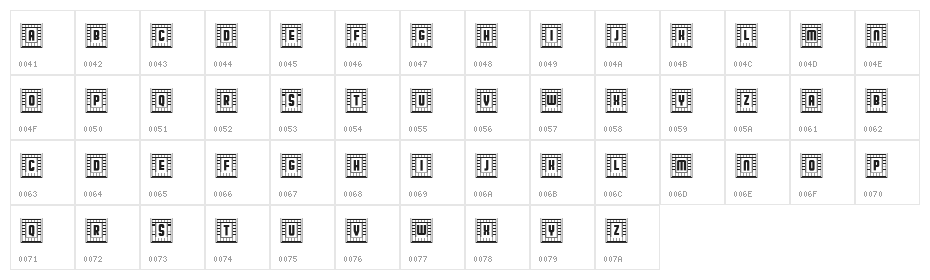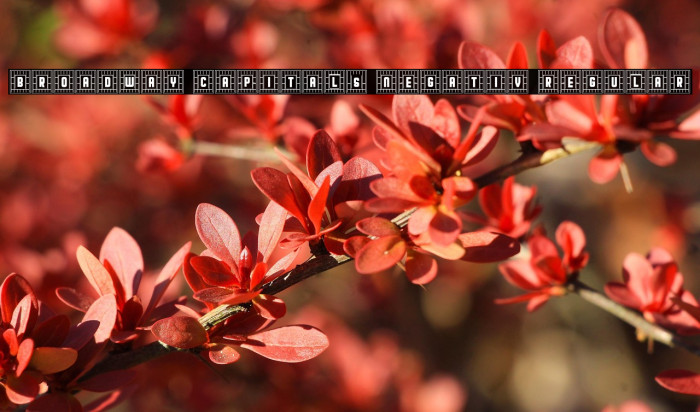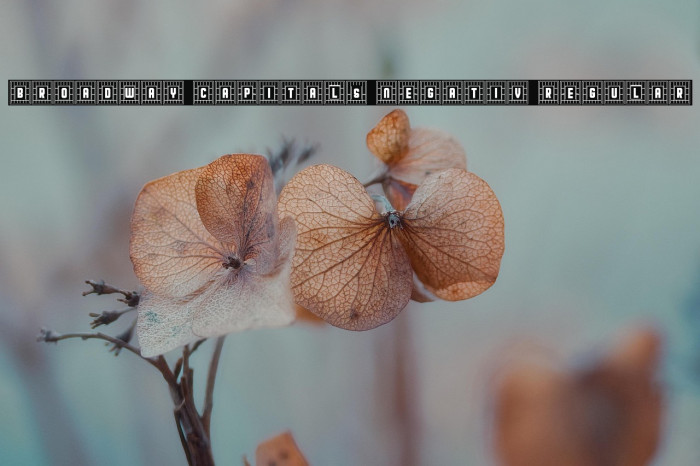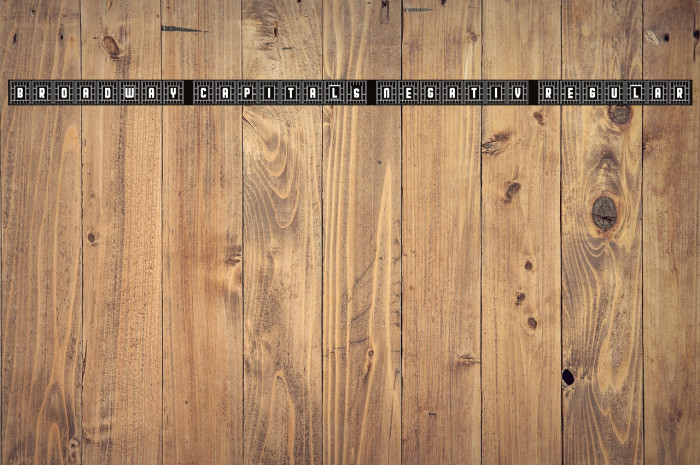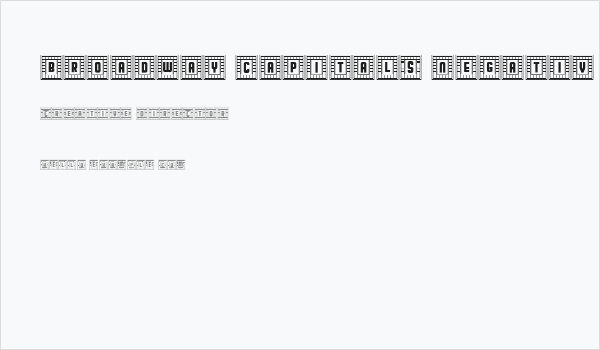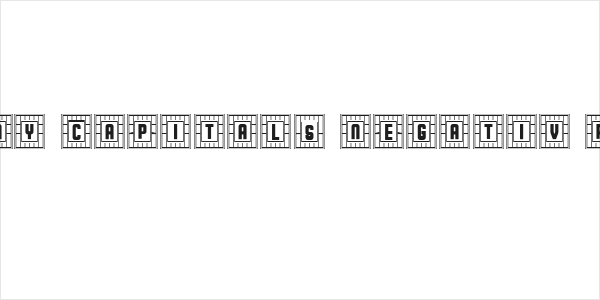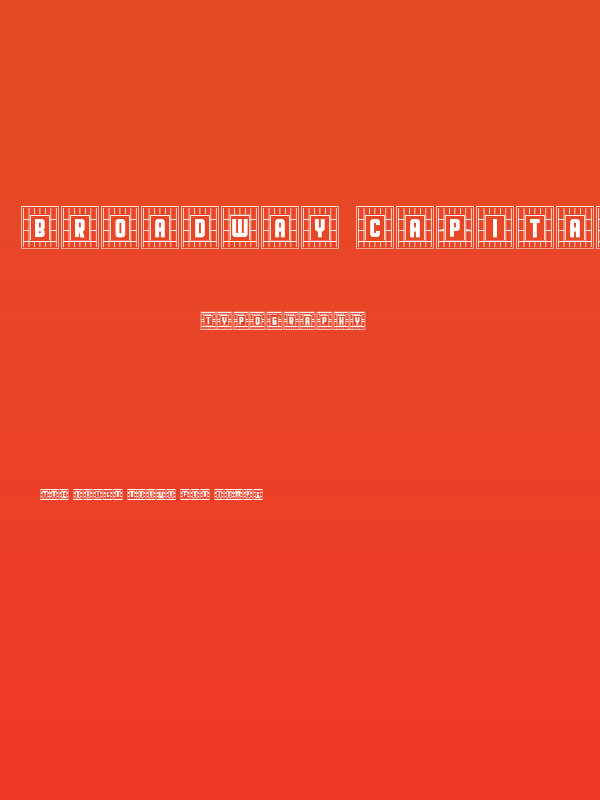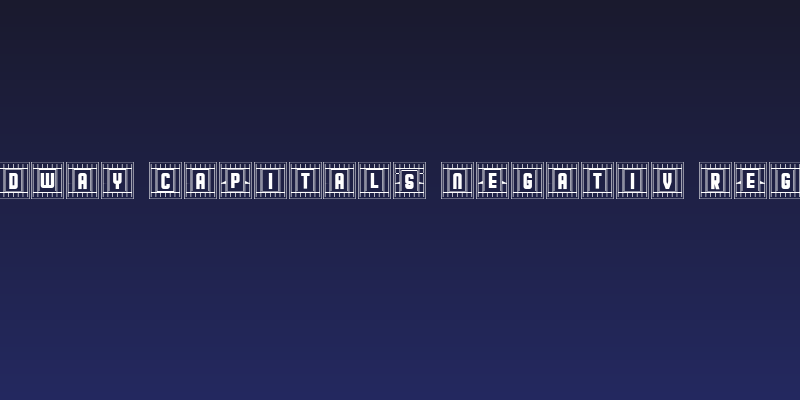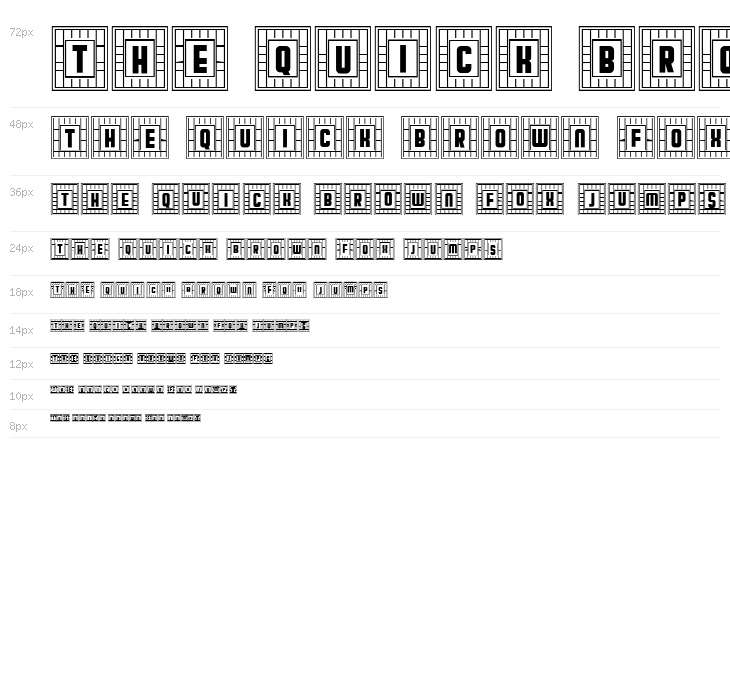
Broadway Capitals Negativ Regular Font
Broadway Capitals Negativ Regular Description
This font features a bold, theatrical style reminiscent of classic marquee lights. Each letter is enclosed within a square frame, adding a structured and decorative element. The letters themselves are bold and sans-serif, with a strong presence that commands attention. The design is highly decorative, making it ideal for projects that require a vintage or theatrical flair. The use of negative space within the frames enhances the visual impact, creating a striking contrast between the letters and their backgrounds.
| Use Case | Headlines, Logos, Signage |
| Proposed Projects | Ideal for theater posters, vintage-themed events, signage, and any project requiring a dramatic and eye-catching typeface. |